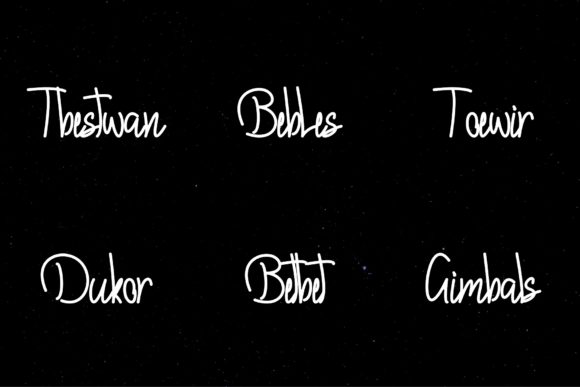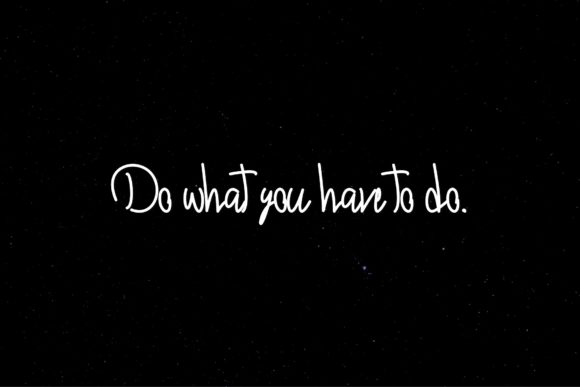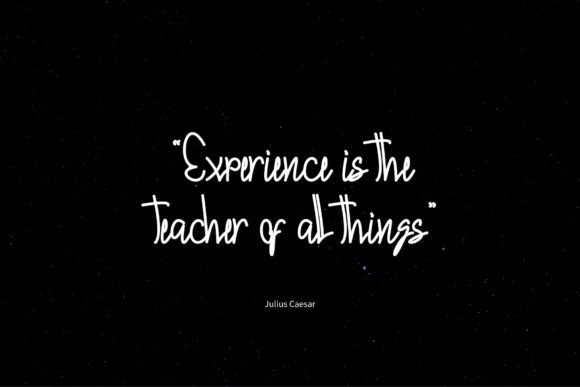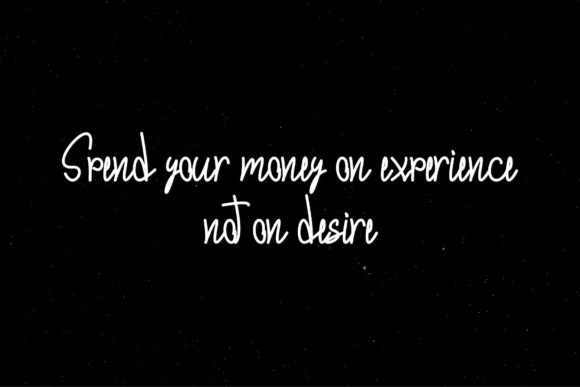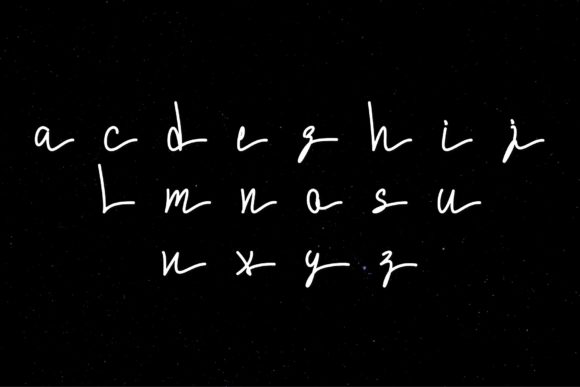
Ralexin Font
About Ralexin Font
Ralexin is a casual script font. It is suitable for social media posts, advertisements, logos & branding, invitations, product design, photography, watermarks, labels, wedding designs, product packaging, and any deisgn that requires a handwritten touch.